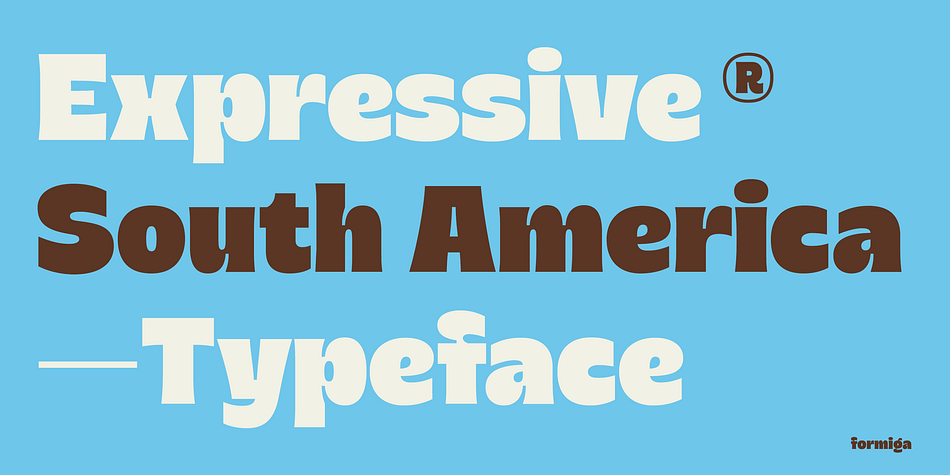
Formiga
Designed by Lucas Pozzobon, Formiga is a sans serif font family. This typeface has seven styles and was published by TipoType.
Formiga is a humanist and expressive display typeface, perfect for impactful headlines in modern and contemporary design contexts. It is also ideal for packaging with a fresh, bold, and powerful style. The typeface family offers seven weights, from light to black, supports 38 languages, and includes OpenType features to improve the legibility of specific characters.